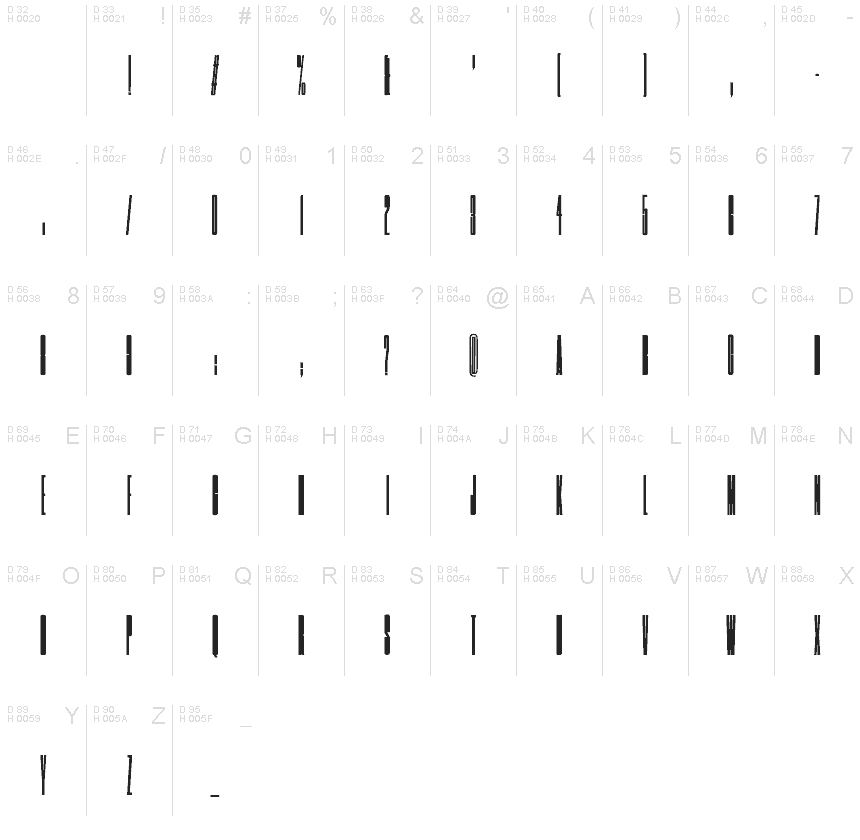
Elong Max Regular
Elong Max font is a light sans serif condensed display font by Elong Max. Each letter is very long and reminiscent of barcodes, giving an integrated system-focused look in any project it appears on. Building on its modern appearance, the designer created regular, high, and low variations to be used creatively in different positions.
The free display font collects use cases such as poster design, branding projects, book titles, game design, interface design, packaging presentations – especially bottle labels or boxes – banners signage design in both web and print platforms.